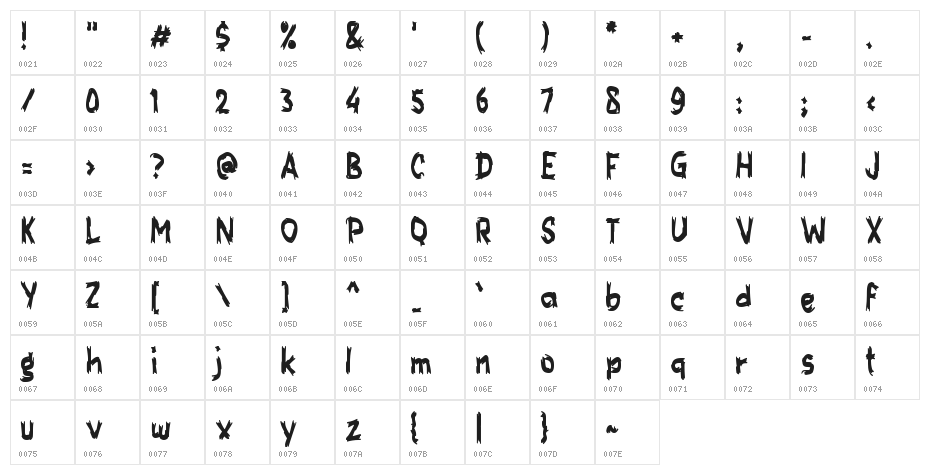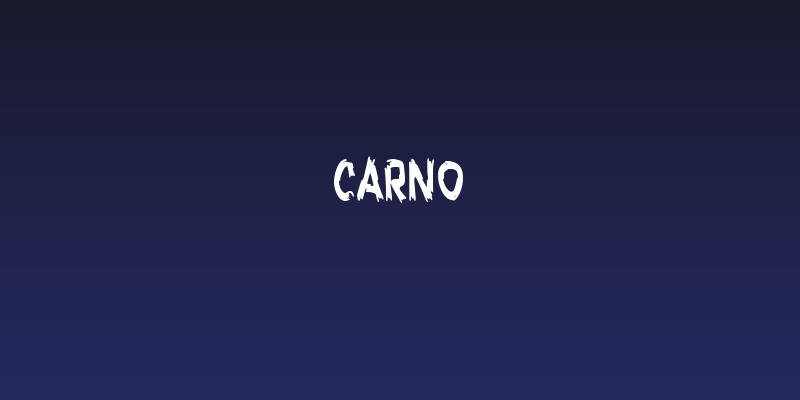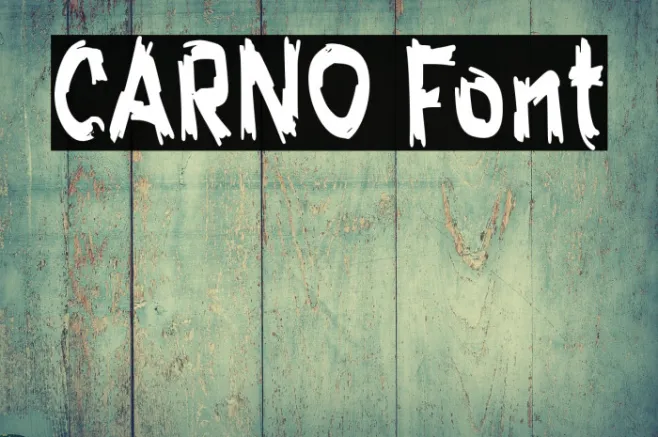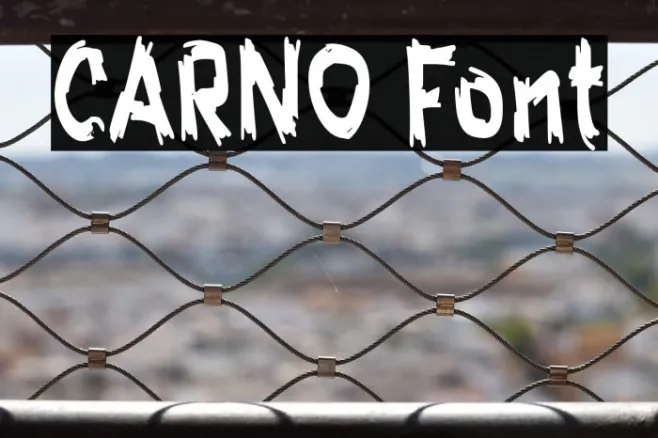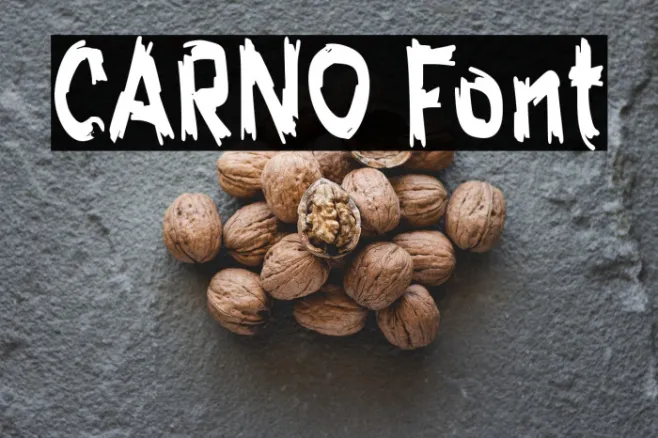
CARNO Font
CARNO Description
This font exhibits a bold and dynamic style with a hand-drawn, brush-like appearance. The characters are irregular and jagged, giving an energetic and raw feel. Each letter has a unique, slightly chaotic form, contributing to its expressive and artistic nature. The uppercase and lowercase letters maintain a consistent style, with the uppercase being more pronounced. Numbers and special characters follow the same aesthetic, ensuring a cohesive look across all elements. The overall design is striking and attention-grabbing, making it suitable for creative and unconventional projects.
| Overall Style | Modern, Artistic |
| Proposed Projects | Ideal for posters, album covers, graffiti art, and any project requiring a bold, artistic touch. |